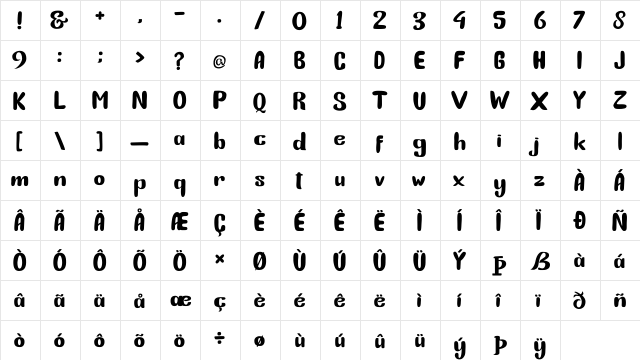
Bunny Funny Regular
| Foundry | Flamde Studio / Nur Solikh |
| Designer | Nur Solikh |
Design Context for Bunny Funny Typeface
Bunny Funny trades formality for fun, with bouncy, characterful letterforms that bring warmth and energy to any project.
Font Pairing: Pairs well with a rounded or humanist sans for body copy, maintaining the friendly tone without relying on Bunny Funny to carry extended reading.
Pro Tip: Avoid using Bunny Funny for long passages of text — it works best for headlines, labels, and short calls to action.